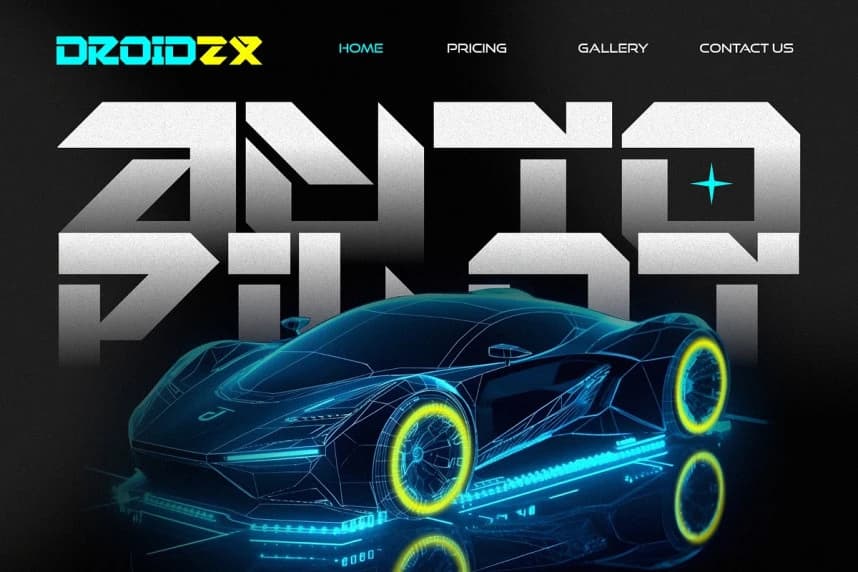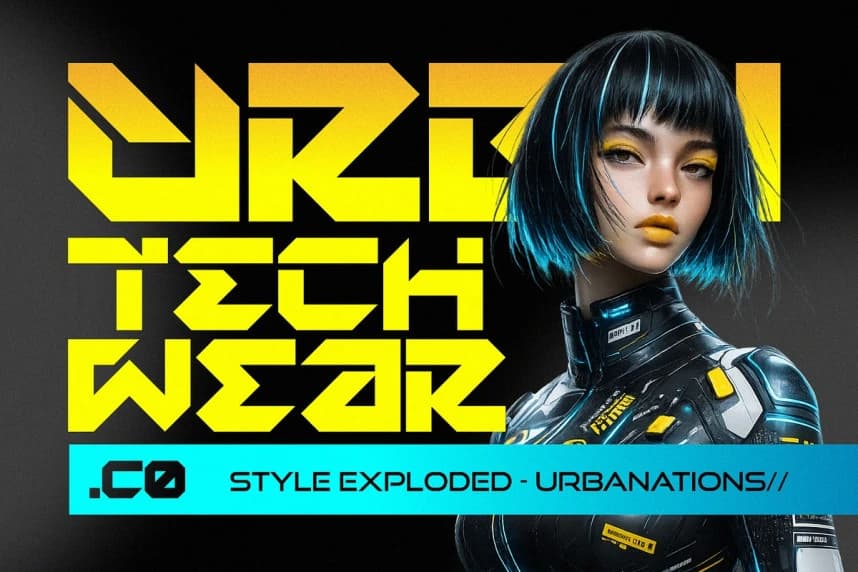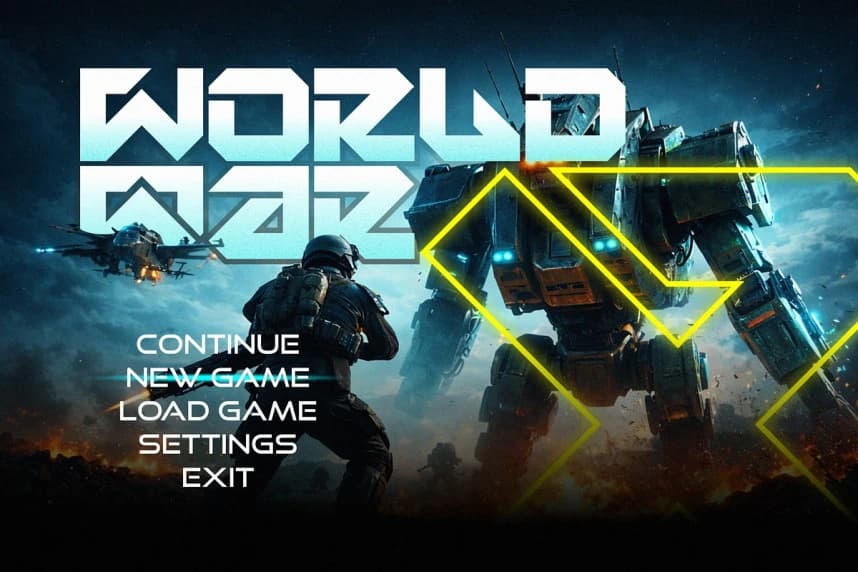
Martin Gaming Font
Martin Gaming Font – Futuristic Techno Font is designed to deliver a sharp, digital-forward look for modern creative projects. Built with a techno-inspired structure, this typeface is ideal for gaming interfaces, sci-fi titles, technology visuals, and high-impact digital layouts.